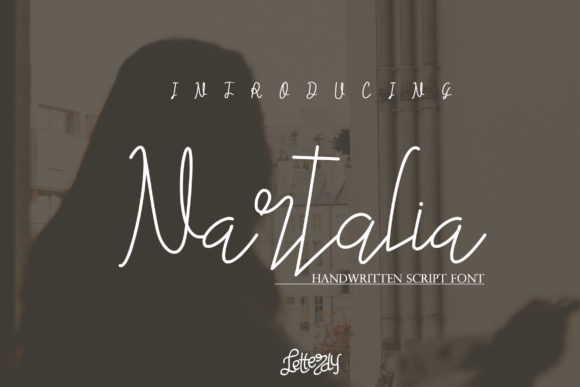
Introduce the Nartalia Font: A Tale of Elegance and Enchantment
In a world saturated with digital text, it's rare to find a font that captures the essence of authentic charm. Nartalia Font, a captivating modern handwritten script, breaks the mold with its disarming elegance and undeniable allure. Crafted by the skilled hand of die.miftah21, Nartalia isn't just a font; it's an experience, a journey into the realm of exquisite typography.
Unveil the Beauty Within: Nartalia's Mesmerizing Qualities
Nartalia Font holds a special place among its peers. Its meticulously crafted characters, each boasting unique ligatures and alternates, dance gracefully across the page, creating visual symphonies that resonate with sophistication and grace. The font's remarkable versatility allows it to seamlessly adapt to a myriad of design aesthetics, transforming ordinary text into captivating expressions of creativity.
Ignite Your Imagination: Explore Nartalia's Limitless Potential
With Nartalia Font at your disposal, the possibilities are endless. Whether you're a seasoned designer crafting a breathtaking logo or an aspiring writer penning a heartfelt letter, Nartalia becomes the perfect companion, infusing your creations with a touch of elegance and originality. Unleash your imagination and watch as your words take on a life of their own, captivating audiences with their newfound eloquence.
A Transformative Experience: Nartalia's Impact on Your Creations
Choosing Nartalia Font isn't merely a stylistic decision; it's an investment in elevating your design projects to unparalleled heights. Experience the transformative power of a font that breathes life into digital text, adding a layer of depth and intrigue that leaves a lasting impression on your audience. Prepare to witness heads turn and hearts flutter as your creations, adorned with the enchanting beauty of Nartalia, command attention and leave an indelible mark.